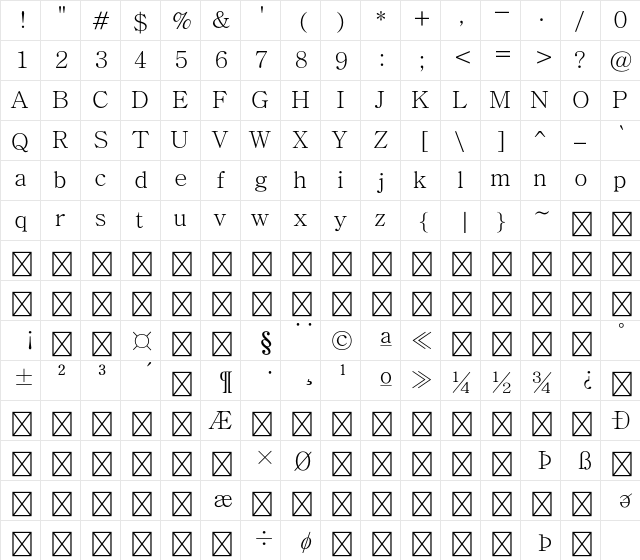
Adobe Myungjo Std M
Design Context for Adobe Myungjo Std Typeface
Adobe Myungjo Std takes a measured approach to typography — its balanced proportions and neutral character make it a reliable workhorse for both digital and print work.